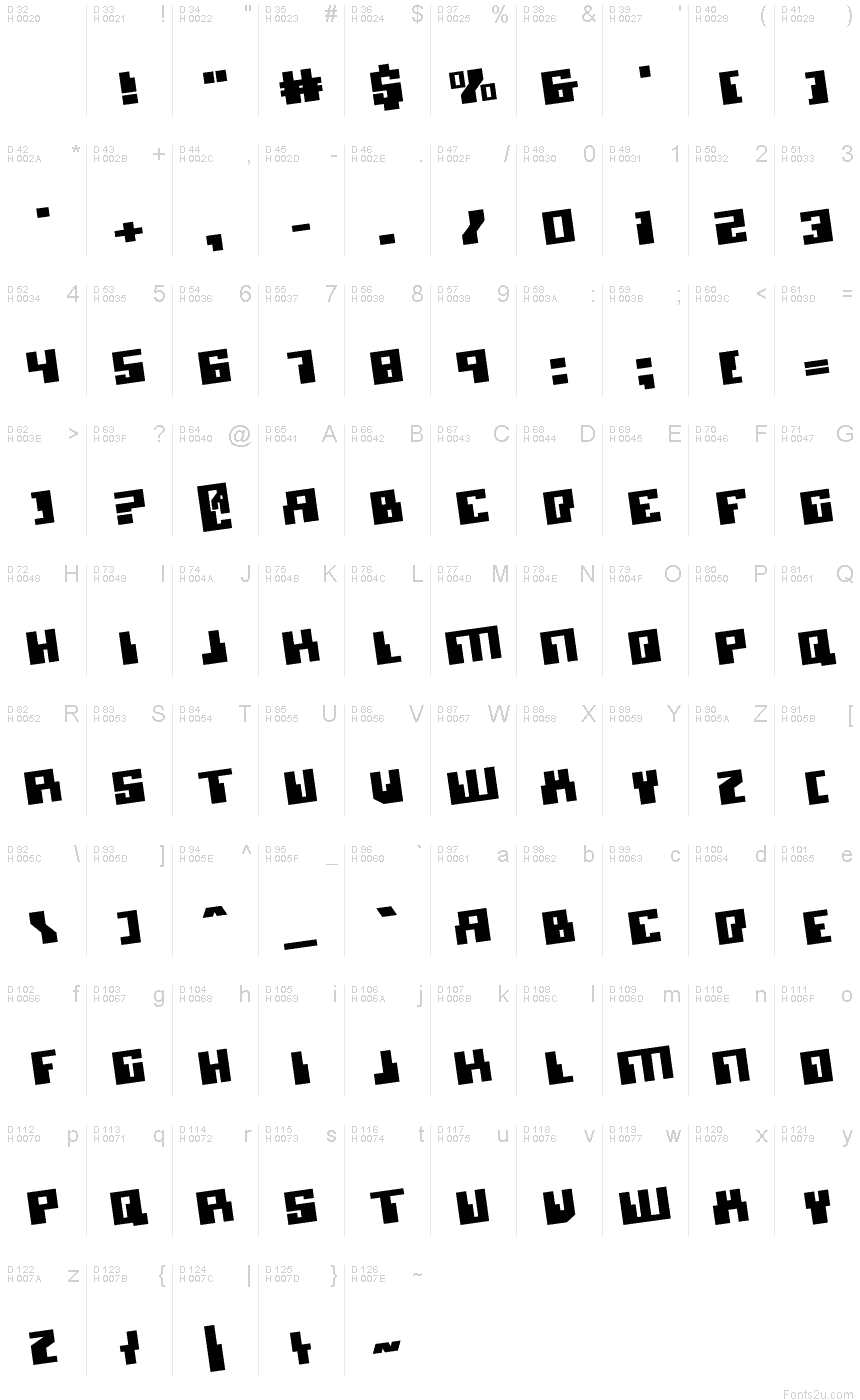
Micronian Rotate by Daniel Zadorozny of Iconian Fonts is a free angular techno display font built from dense, squared letterforms. Each character seems to occupy its own tilted panel, with abrupt corners and blocky cutouts producing a restless, mechanical silhouette. The uneven rotation keeps the lettering lively.
Game graphics are an especially apt medium, since the segmented shapes resemble arcade cabinets, control panels, and chunky screen icons, and the same construction also suits music posters and science-fiction packaging. On merchandise and event signage, the letters can become part of an illustrated machine interface or modular emblem rather than serving as ordinary text.